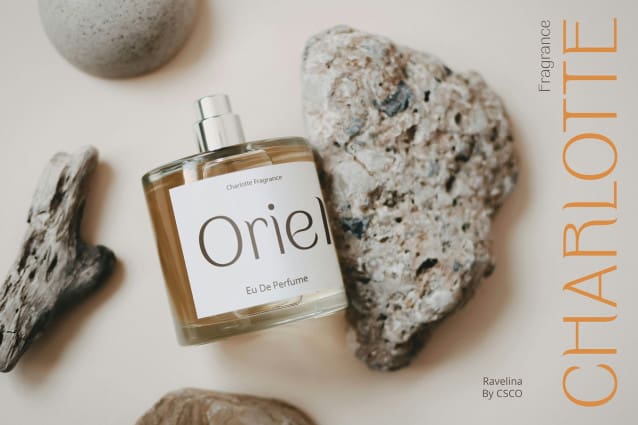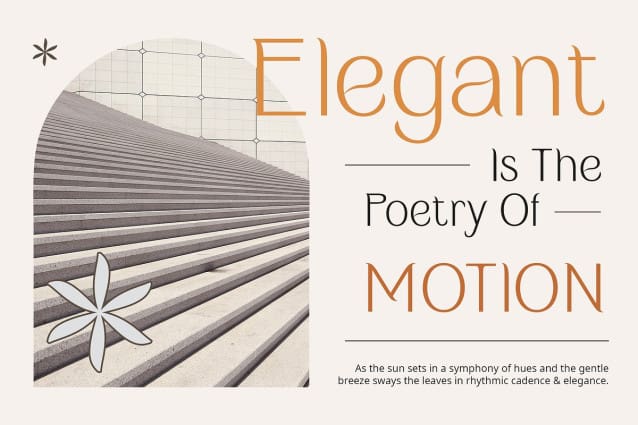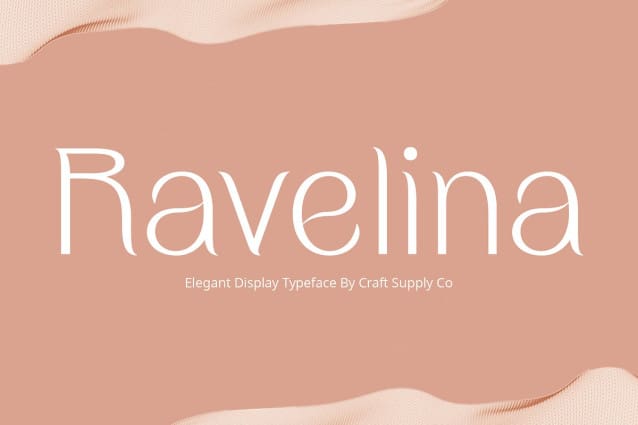
Ravelina Font
Ravelina Font is a modern sans-serif typeface that radiates beautiful elegance in every design. Its clean lines and sophisticated appearance make it the perfect choice for projects that require a touch of refined beauty.
With its sleek design and sophisticated look, RavelinaFont adds a touch of elegance to any project. Whether used for headlines, body text, or branding, this font is sure to make a statement.
Ravelina Font is versatile and suitable for a wide range of design applications. Its modern appearance and elegant style make it ideal for everything from logos and branding to editorial layouts and packaging.
Elevate your designs with Ravelina Font, where modernity meets elegance. Its clean lines and refined appearance ensure that your projects exude sophistication and beauty.